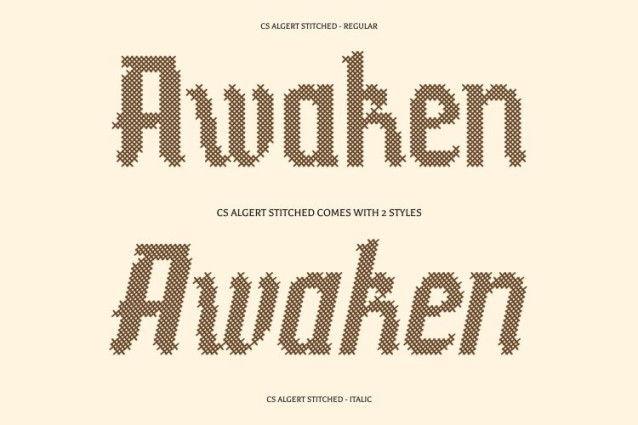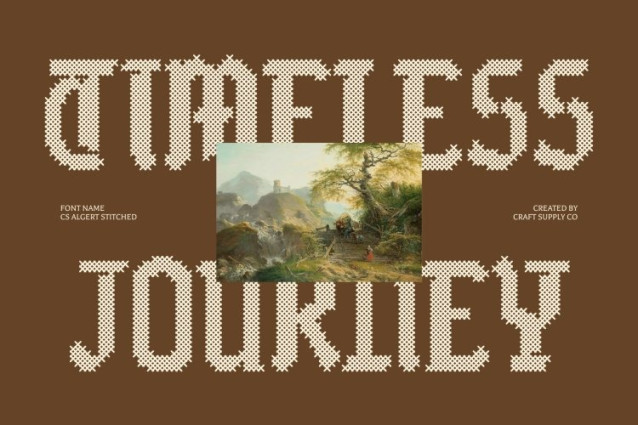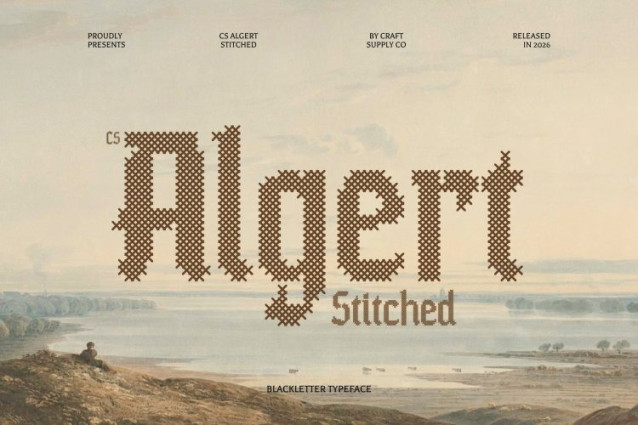
CS Algert Stitched Font
CS Algert Stitched Font – This reimagines the classic Blackletter style by blending its ornate, historical elements with a refined contemporary edge. This modern Blackletter display serif font preserves the grandeur and intricate artistry of traditional forms while introducing a fresh, updated structure. Enhanced with a stitched style inspired by thread sewn or embroidered on fabric, it adds warmth and tactile character to its dramatic presence.
Ornate Letterforms with Embossed Stitch Texture
The elaborate letterforms of this font deliver a striking and sophisticated visual impact. A distinctive cross-shaped stitch pattern creates an embossed and structured texture, giving each character a handcrafted, fabric-like appearance. This stitched detailing adds a classic, nostalgic, relaxed, and warm impression softening the bold Gothic intensity while preserving its authority and elegance.
Versatile for Luxury, Themed, and Craft-Inspired Projects
Perfect for high-impact headlines, luxury branding, exclusive event materials, invitations, and decorative layouts, this font offers a compelling fusion of tradition and modernity. The stitched texture further expands its versatility, making it suitable for fashion logos, clothing labels, craft-themed designs (DIY), and creative projects seeking a distinctive, textured aesthetic.
Blending Heritage with Contemporary Style
By merging Blackletter’s rich historical essence with modern refinement and handcrafted stitched detail, this font achieves a balanced harmony between classic sophistication and innovative design. The result is a powerful, memorable typeface that brings depth, character, and timeless elegance to any visual identity.